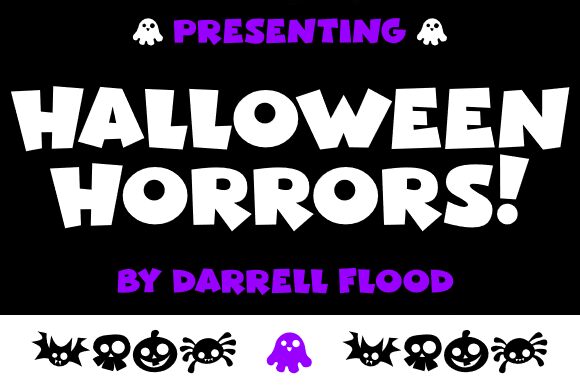
Halloween Horrors Italic
Get ready to dive into the spooky world of Halloween Horrors Italic! This extra-bold font from the Halloween Horrors family adds a spine-chilling touch to any project.
With its semi-expanded width, it injects a playful and cartoonish vibe that perfectly suits Halloween-themed designs. Whether you're working on party invitations, children's book covers, or even haunted house advertisements, this font will bring your creations to life (or should we say afterlife?).
Unleash your creativity and embrace the frightful fun with Halloween Horrors Italic by Hawtpixel!